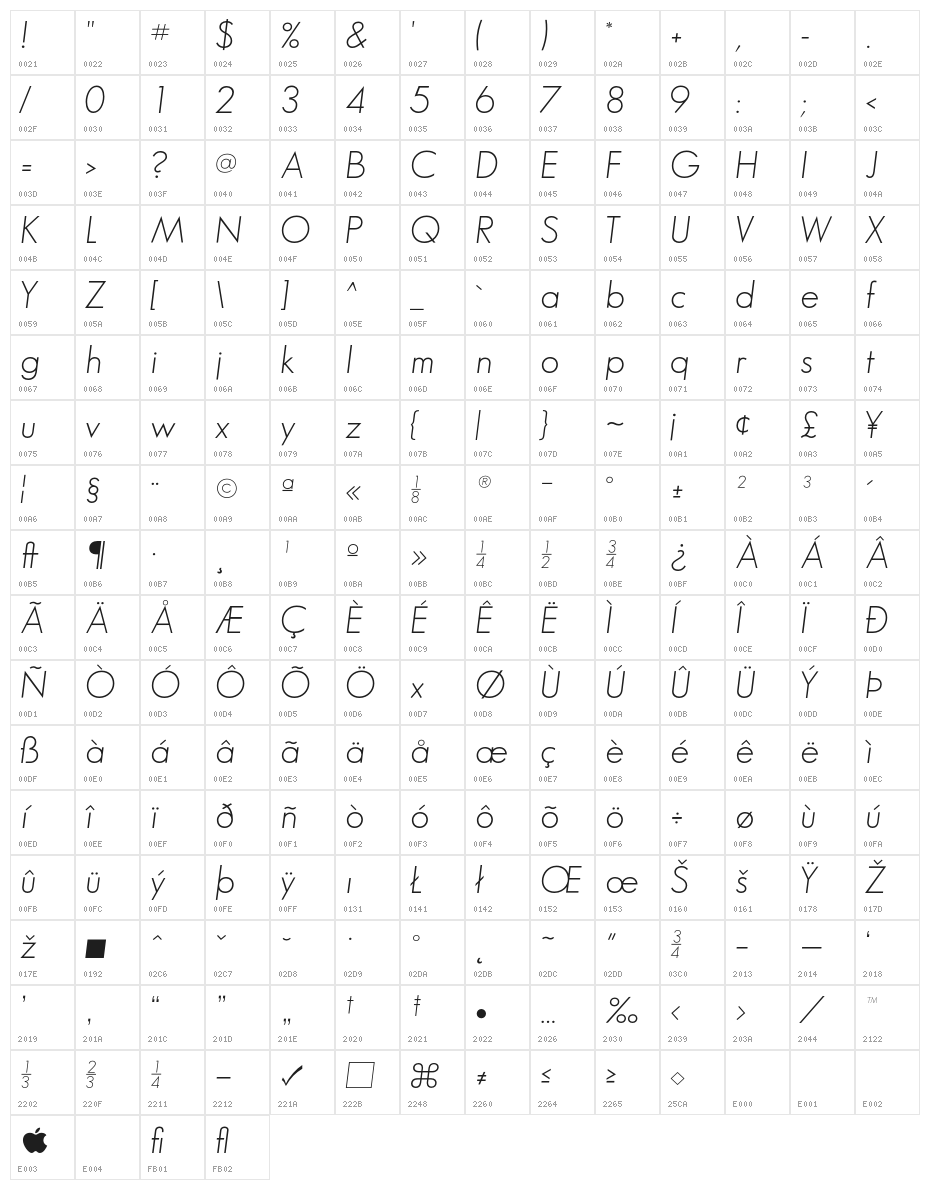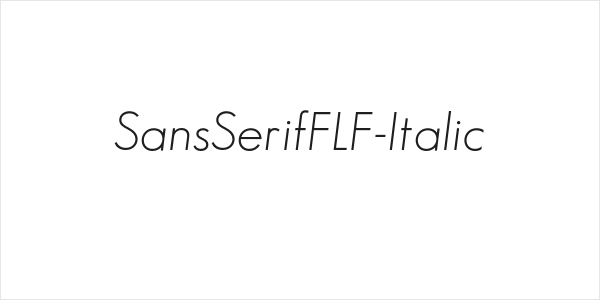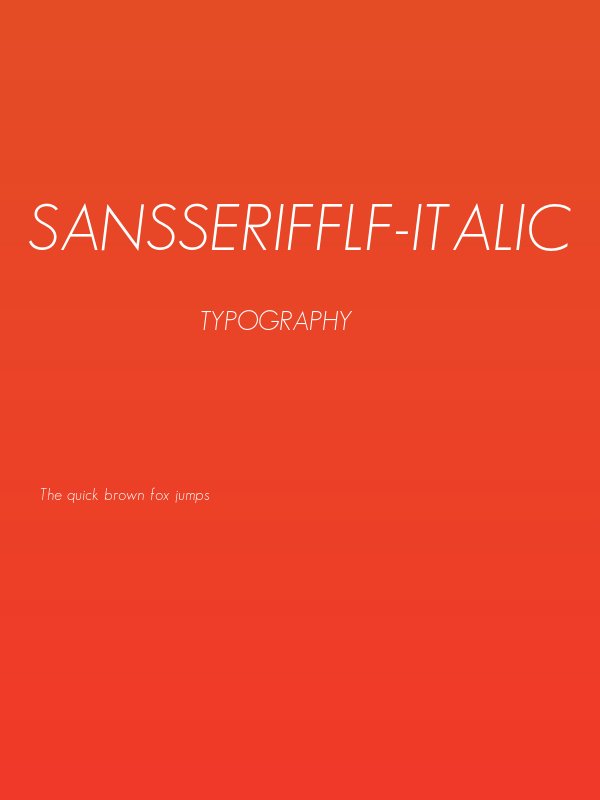
SansSerifFLF-Italic Font
SansSerifFLF-Italic Description
This font features a clean and modern sans-serif design with a subtle italic slant, giving it a sleek and dynamic appearance. The characters are well-proportioned, with a consistent stroke width that maintains a harmonious balance across both uppercase and lowercase letters. The numerals are clear and legible, making them suitable for a variety of applications. The special characters are distinct and well-integrated into the overall style, enhancing the font's versatility. Its simplicity and elegance make it an excellent choice for projects that require a contemporary and professional look.
| Proposed Projects | Ideal for branding, advertising, web design, and editorial projects that require a modern and professional aesthetic. |